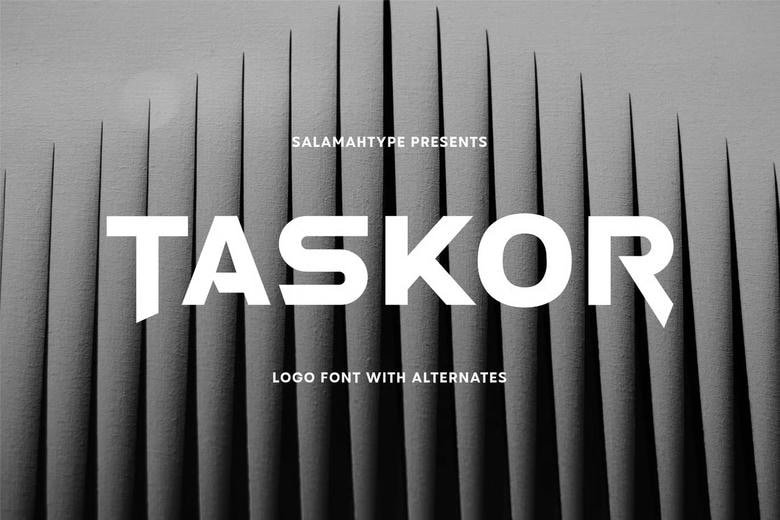
Taskor Font
Taskor is a rather special font in all caps which has a modern geometric style appearing highly suitable to be utilized in logos, branding or futuristic design related themes. Its robust but clear letter shapes give a professional stature to your project and still remain minimalistic in nature.
Taskor is accompanied by substitutes to enable you to be flexible and creative when you design. Taskor is ideal to use in brand logos, technology logos, game logo, modern posters, and modern product packaging design.
Taskor Sans Serif Font